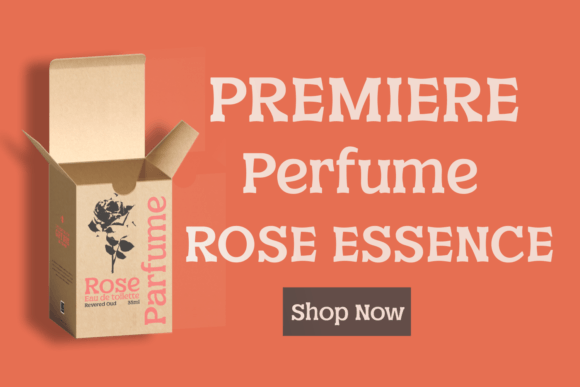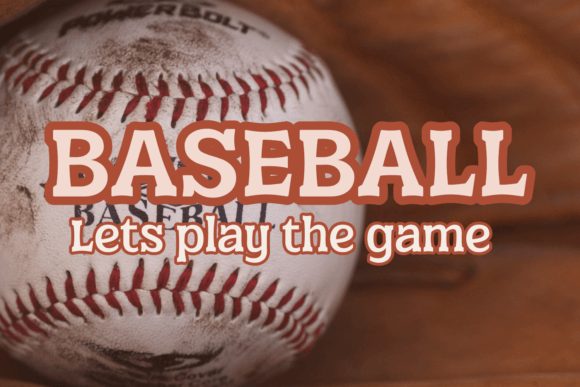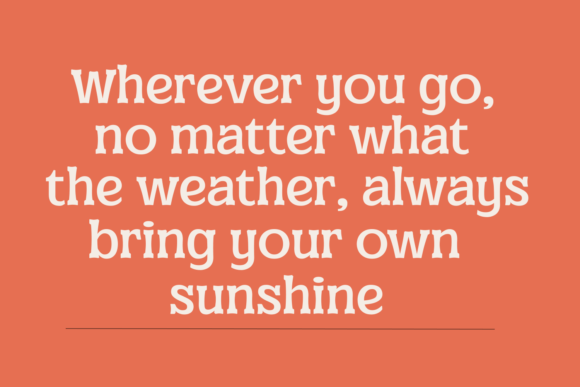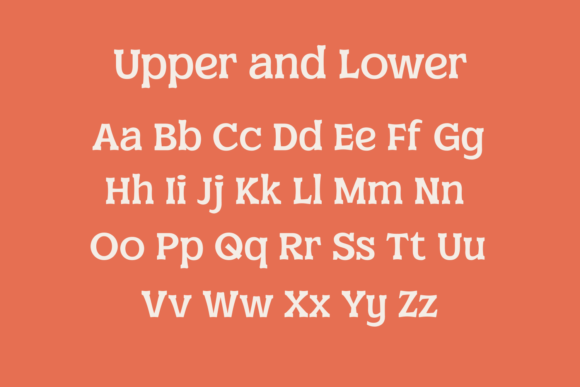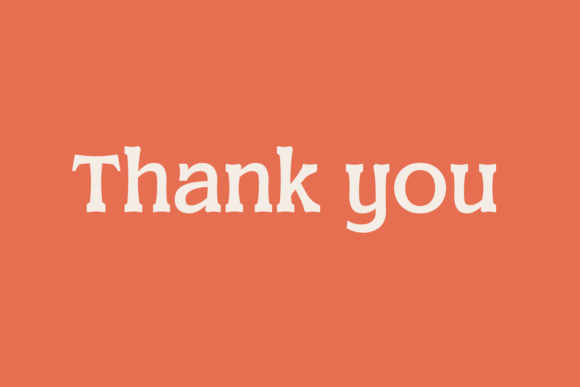
Introduction to Sangeki Font
Have you ever stumbled upon the perfect font for your creative project, and it instantly elevates your entire design? For designers, finding the right font can be a game-changer. It’s that moment when your ideas come together, and your vision takes shape. This is exactly what the Sangeki Font can do for your next project.
As a fun display serif font, Sangeki Font is designed to make a statement. Its unique style and high-quality design make it an excellent choice for logotypes, stickers, packaging designs, and more. Whether you’re working on a Cricut project, creating a brand identity, or designing a magazine cover, Sangeki Font is sure to bring your creative ideas to life.
Key Features of Sangeki Font
- Includes a range of glyphs and characters, making it suitable for a variety of creative applications.
- Unique characteristics, such as distinctive lettering and flourishes, add a touch of personality to your design.
- Perfect for designers and artists looking for a high-quality design resource to elevate their creative project.
Honest Review: Sangeki Font
I recently had the chance to work with the Sangeki Font, and I’m excited to share my honest review with fellow designers. As a design resource, the Sangeki Font is definitely worth considering for your next creative project.
- ✨ High-quality design: The Sangeki Font features crisp, clean lines and a modern aesthetic that’s perfect for a variety of design applications.
- ⚠️ Limited font styles: While the Sangeki Font is a great addition to any design collection, it’s worth noting that the available font styles are somewhat limited.
- ⚠️ Not suitable for print: Unfortunately, the Sangeki Font is not optimized for print design, which may be a drawback for designers working on projects that require high-resolution output.
Overall, I’m impressed with the Sangeki Font, and I think it’s a great resource for designers looking for a high-quality, free download. With a little creativity, the Sangeki Font can add a lot of value to your next design project.
Sangeki Font
The Sangeki Font is commonly used in graphic design, digital art, and creative writing projects. Its high-quality design and transparent background make it an excellent choice for designers and artists who want to create visually stunning projects.